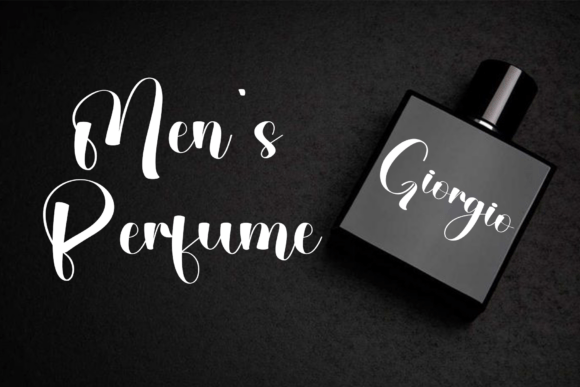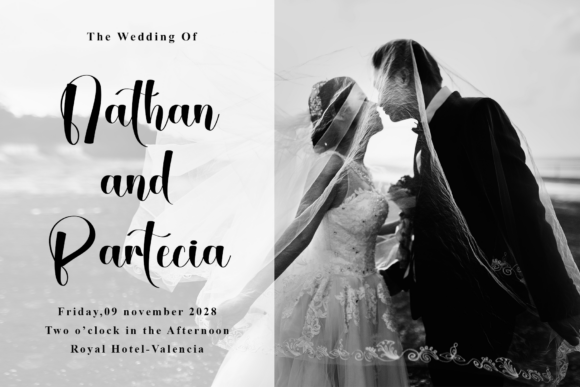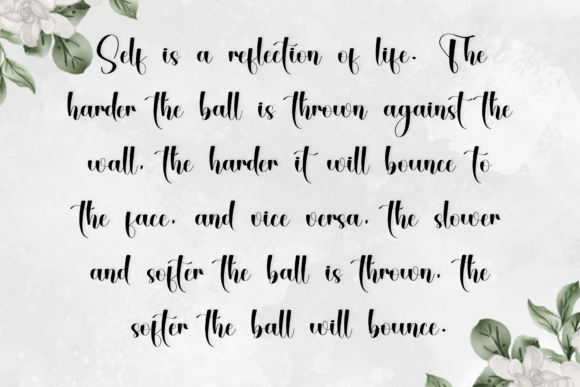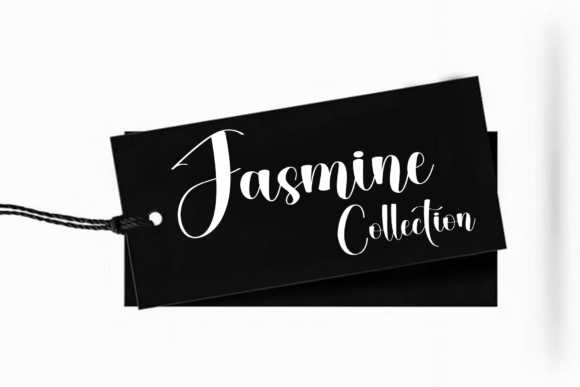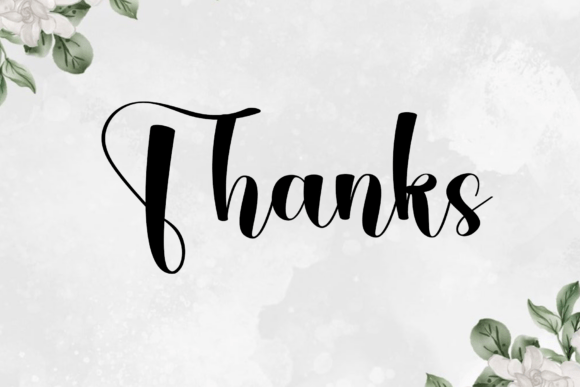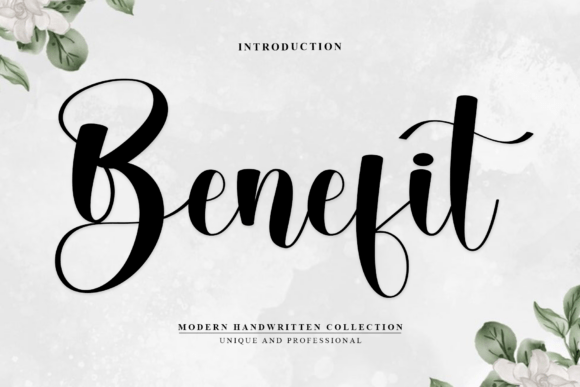
Introducing Benefit Font: Elevate Your Designs with Elegance and Sophistication
Are you looking for a font that adds a touch of elegance and sophistication to your designs? Look no further than Benefit Font, a beautiful handwritten font that exudes softness and grace. With its gentle strokes and feminine touch, Benefit Font is perfect for designers and crafters who want to add a delicate touch to their projects.
The Characteristics of Benefit Font
Benefit Font is a carefully crafted handwritten font that captures the essence of a handwritten signature. Its graceful strokes and flowing lines give it a timeless charm that is perfect for a variety of design projects. The font features:
- Elegant Handwritten Style: Benefit Font boasts a beautiful, elegant handwritten style that is perfect for adding a touch of sophistication to your designs.
- Feminine Touch: The font features a delicate, feminine touch that makes it perfect for designs that require a subtle, elegant feel.
- Graceful Strokes: The font’s gentle strokes and flowing lines give it a smooth, refined appearance that is perfect for a variety of design applications.
Benefit Font is a versatile font that is perfect for a variety of design projects, including:
- Invitations: Add a touch of elegance to your invitations with Benefit Font, perfect for weddings, baby showers, and other special occasions.
- Greeting Cards: Create beautiful, heartfelt greeting cards with Benefit Font, perfect for birthdays, holidays, and other special occasions.
- Personal Branding: Use Benefit Font to add a touch of sophistication to your personal branding, including logos, business cards, and website headers.
Why Choose Benefit Font?
There are many reasons why Benefit Font is the perfect choice for your design projects. Here are just a few:
- Unique and Elegant: Benefit Font is a unique and elegant font that will set your designs apart from the crowd.
- Versatile: The font is perfect for a variety of design projects, from invitations and greeting cards to personal branding and more.
- Easy to Read: Benefit Font is clear and easy to read, making it perfect for designs that require a high level of legibility.
Tips for Using Benefit Font
Here are a few tips for using Benefit Font in your designs:
- Use it Sparingly: Benefit Font is a elegant font that is best used sparingly. Use it as a headline or title font, and pair it with a simpler font for body text.
- Experiment with Colors: Benefit Font looks beautiful in a variety of colors, from soft pastels to rich jewel tones. Experiment with different colors to find the perfect look for your design.
- Pair it with Other Fonts: Benefit Font pairs beautifully with other fonts, including serif and sans serif fonts. Experiment with different font combinations to find the perfect look for your design.
Benefit Font is a beautiful, elegant handwritten font that is perfect for designers and crafters who want to add a touch of sophistication to their designs. With its gentle strokes and feminine touch, Benefit Font is perfect for a variety of design projects, from invitations and greeting cards to personal branding and more. Whether you’re looking for a unique and elegant font to set your designs apart, or simply want to add a delicate touch to your projects, Benefit Font is the perfect choice.